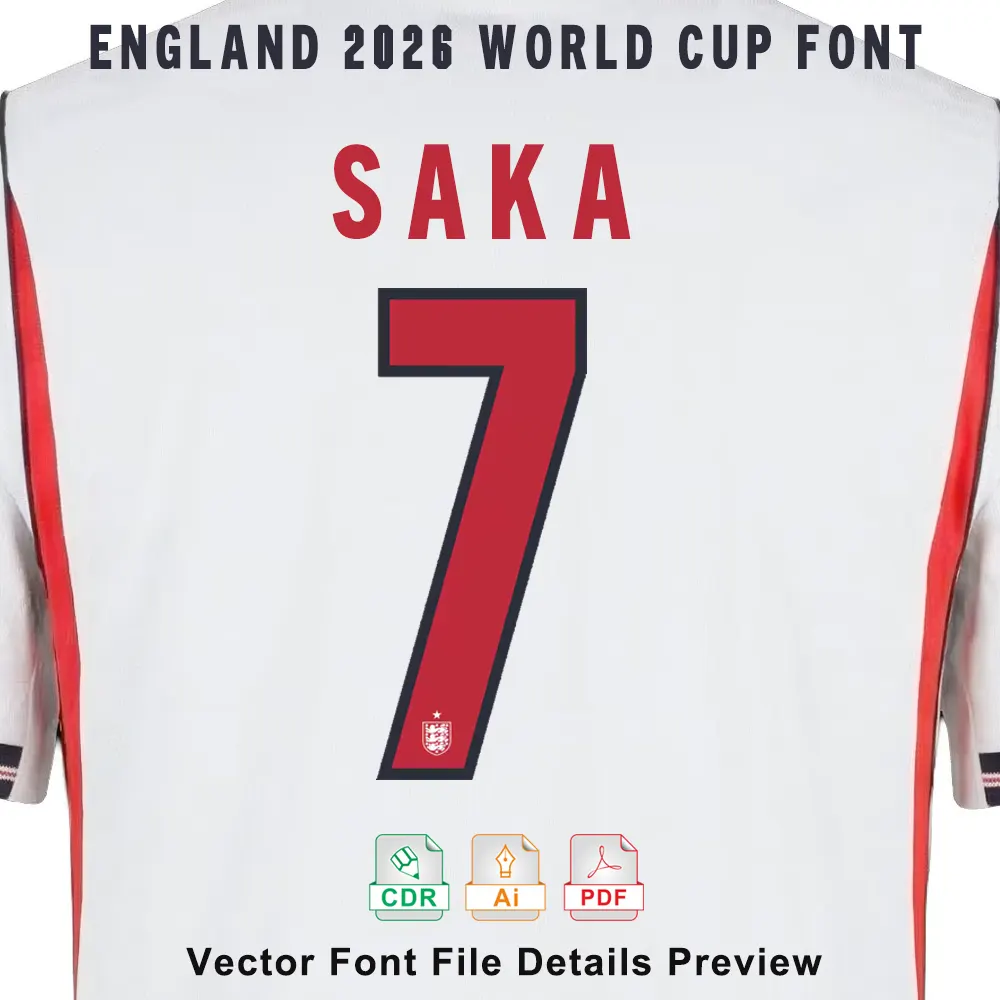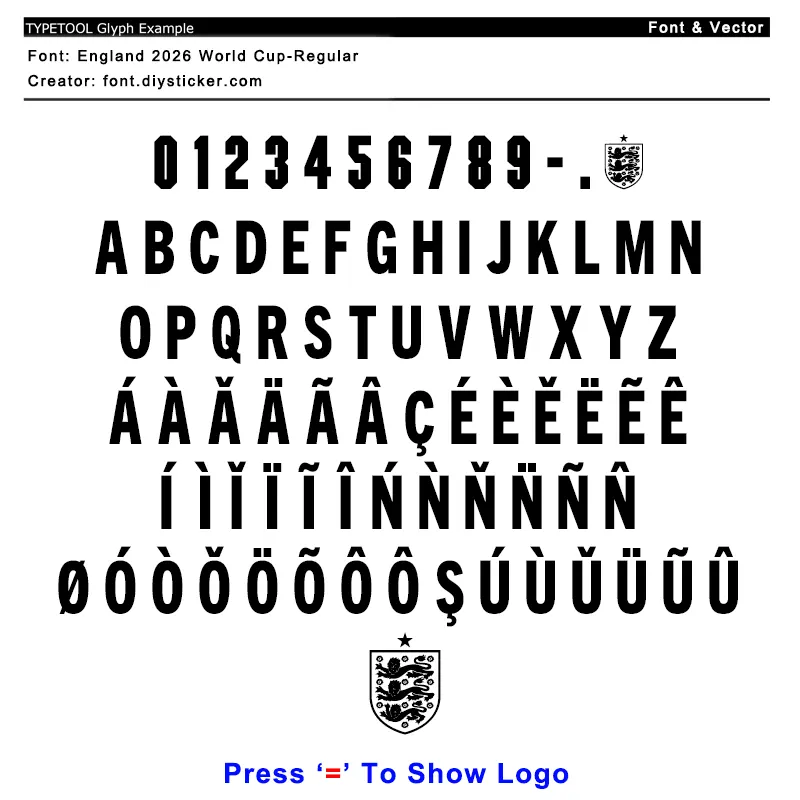
Elevate your soccer jersey designs with the official-style England 2026 World Cup Font Vector Pack, featuring all the characters, numbers, and special accents you need for custom prints, digital projects, and commercial use. This comprehensive font set includes TTF, OTF, AI, CDR, and PDF vector formats, ensuring compatibility with every design tool from Adobe Illustrator to CorelDRAW.
Key Features
- Full Character Set: Uppercase letters, numbers, special accents, and England national team crest integration for authentic jersey designs.
- Home & Away Color Versions: Red (home) and black (away) font variations to match England’s 2026 kit colors.
Ideal For
- Custom soccer jersey design (England national team, club kits)
- Sports apparel printing and embroidery
- Digital graphics, social media, and fan art